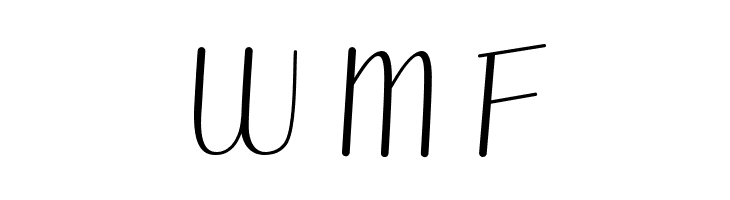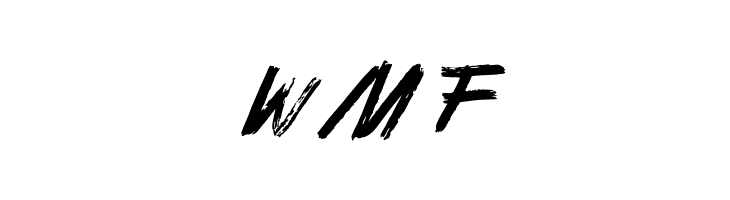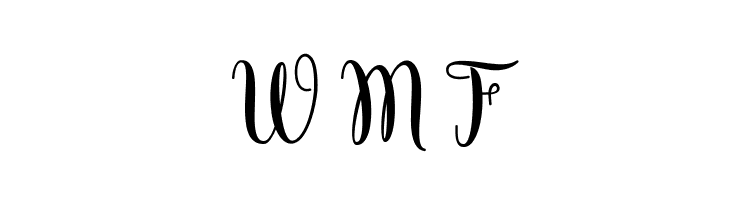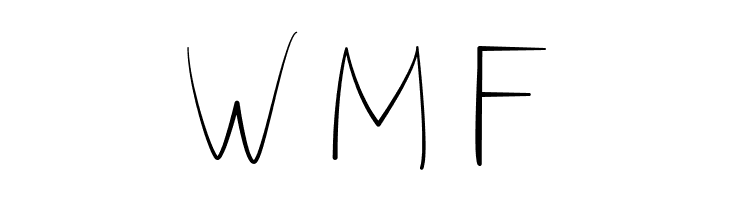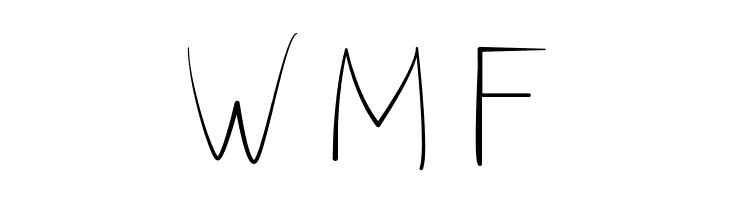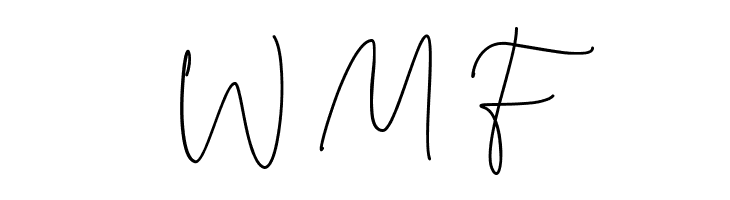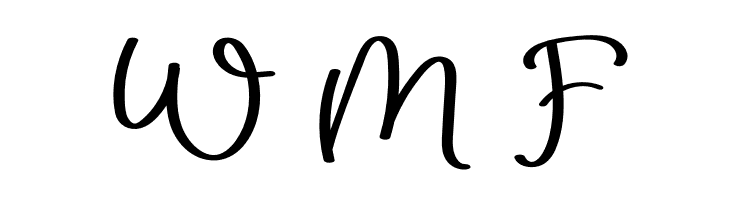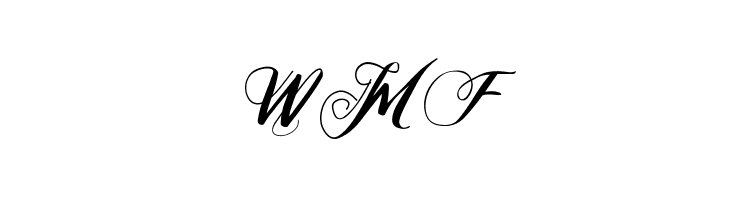
A modern, cursive font with flowing, connected strokes.
A playful and casual handwritten font with fluid strokes and dynamic character forms.
A playful, handwritten font with dynamic and elongated letterforms.
A bold, rounded font with a strong, modern presence.
A playful and casual handwritten font with smooth curves and a modern touch.
An elegant and sophisticated script font with intricate swashes and flowing cursive style.
A bold, cursive script font with elegant loops and swashes.
A playful and elegant script font with flowing, cursive letterforms.
A bold, dynamic brush script font with expressive strokes.
A lively and dynamic handwritten font with fluid strokes and medium contrast.